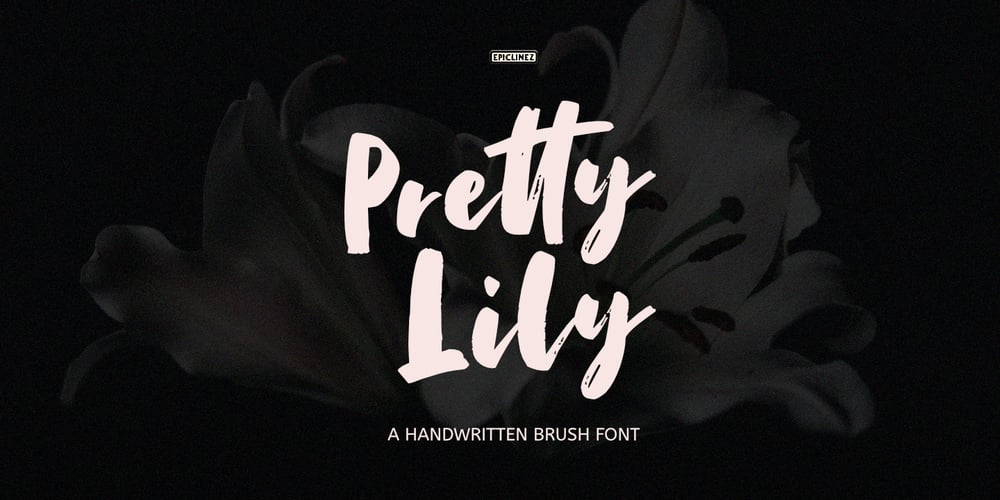
Pretty Lily
Pretty Lily font
Pretty Lily Font Family was designed by Aldy Sidik and published by Epiclinez. Pretty Lily contains 1 styles and family package options. Pretty Lily is a dry brush handwritten script font. Very cool if use for logos, headlines, branding, etc.